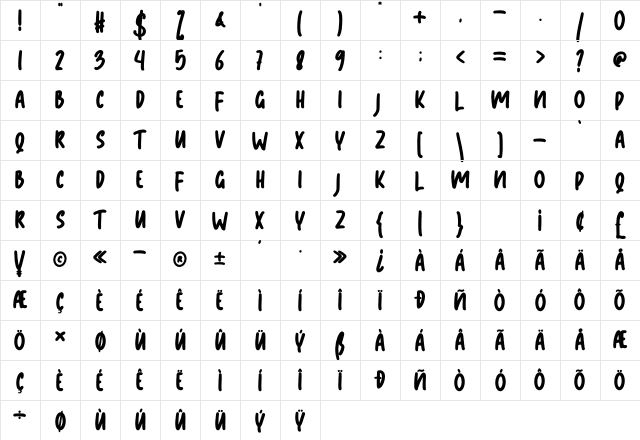
Apmonse Regular Free Font
Apmonse Regular
Designer: Skiiller studio - M irfan mahmudin
Design Context for Apmonse
Apmonse is a composed and adaptable typeface that performs quietly and consistently across a wide range of design contexts.